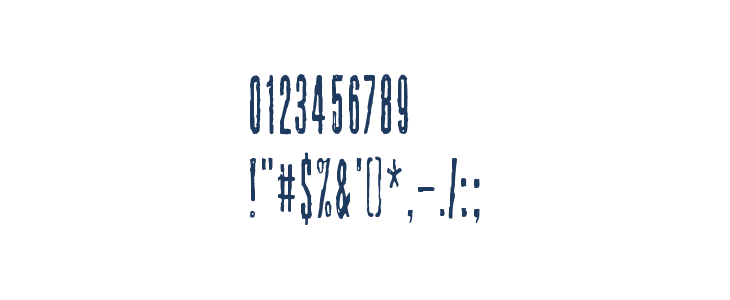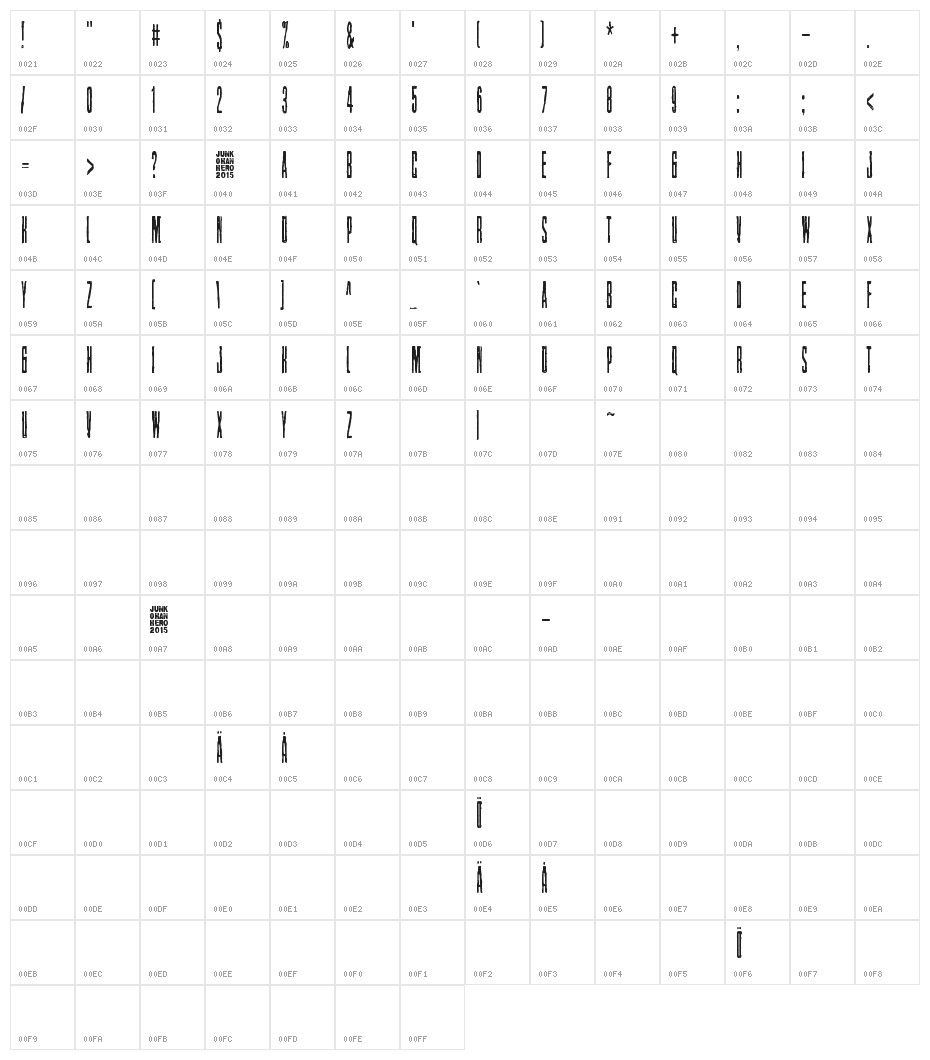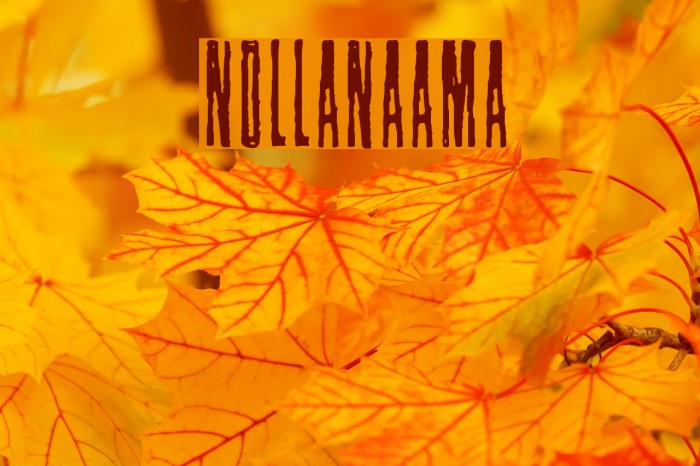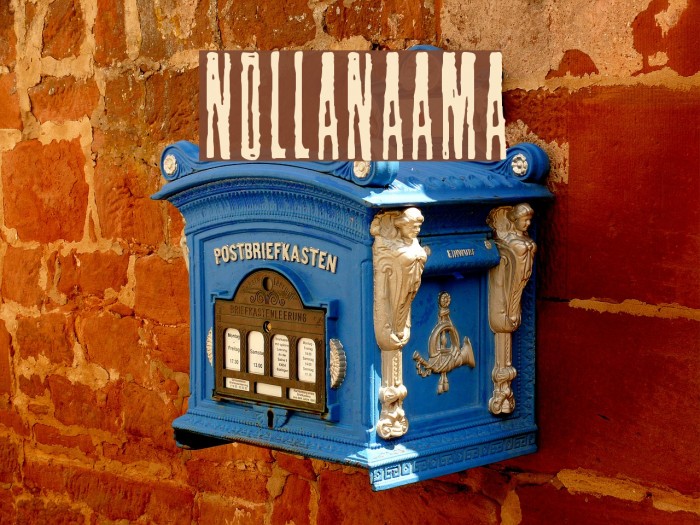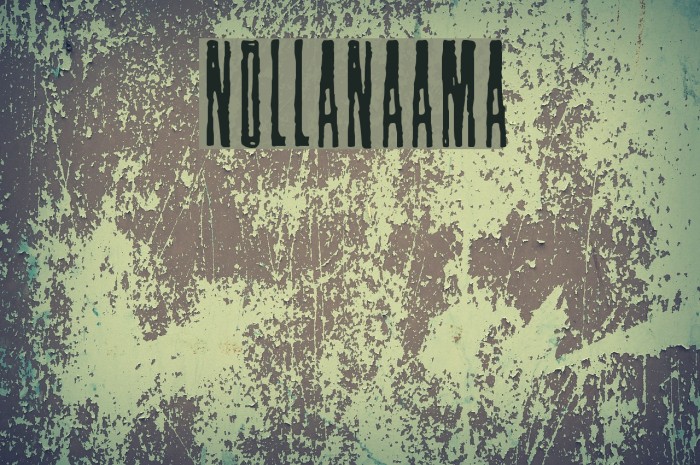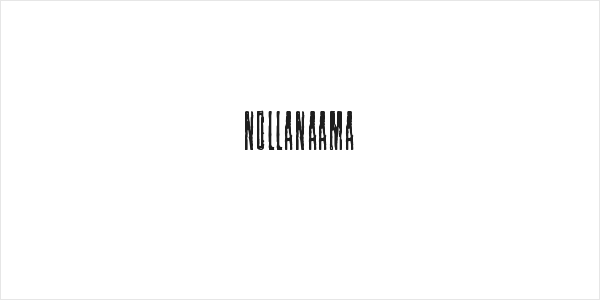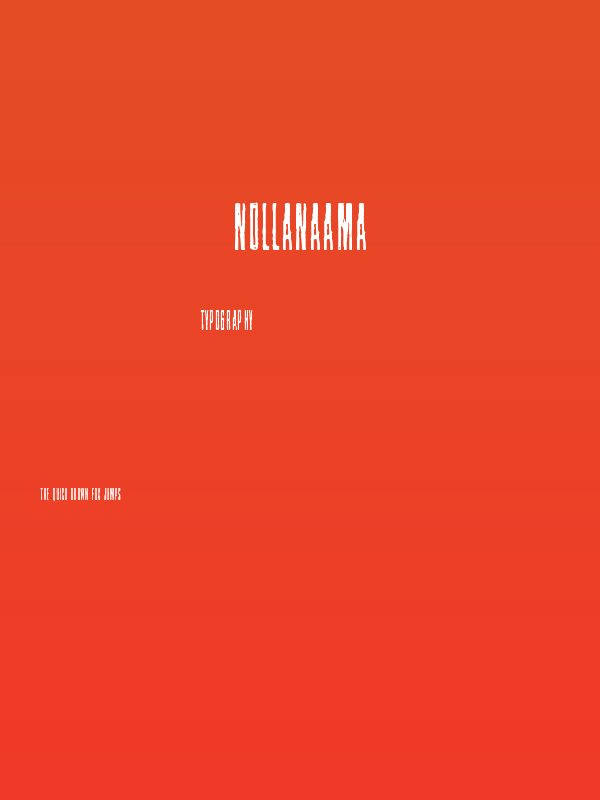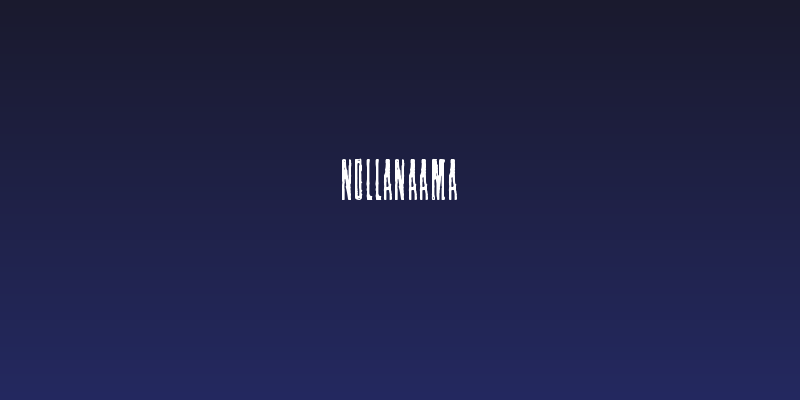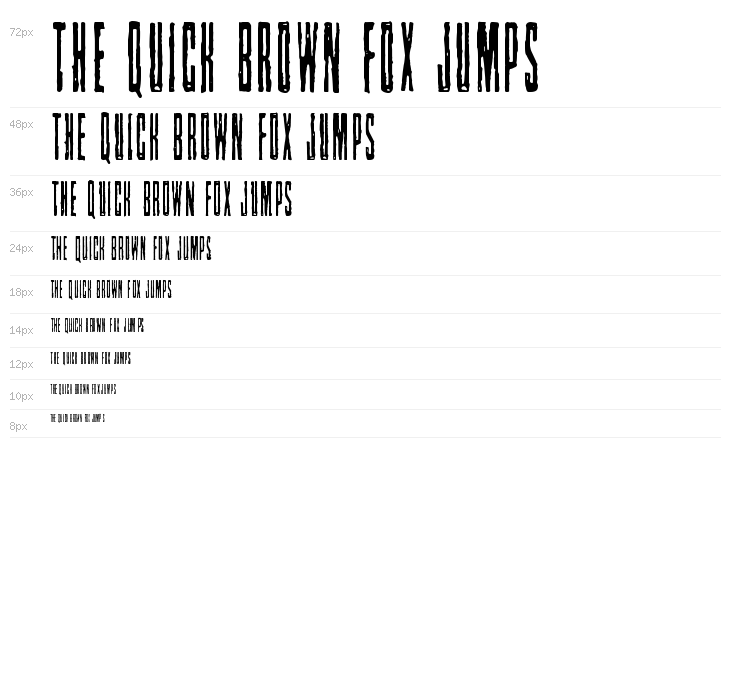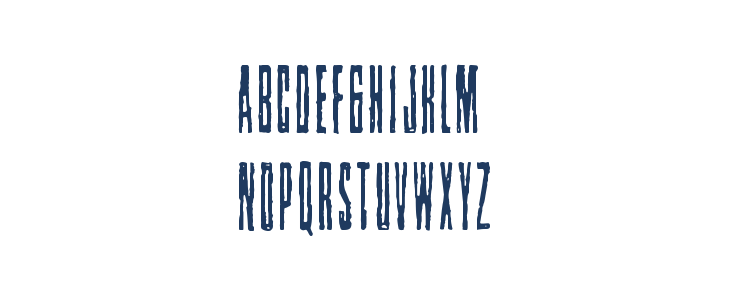
Nollanaama Font
Nollanaama Description
This font features a rugged, distressed style with a bold and impactful appearance. The characters are tall and narrow, giving them a condensed look, while the rough edges and uneven texture add a vintage, worn-out feel. The uppercase letters are prominent, and the numbers and special characters maintain the same distressed aesthetic. This font is ideal for projects that require a strong, eye-catching design with a touch of nostalgia or a gritty, urban vibe.
Overall StyleVintage
Proposed ProjectsPerfect for posters, album covers, branding for vintage or rustic-themed products, and any design needing a bold, eye-catching typeface.